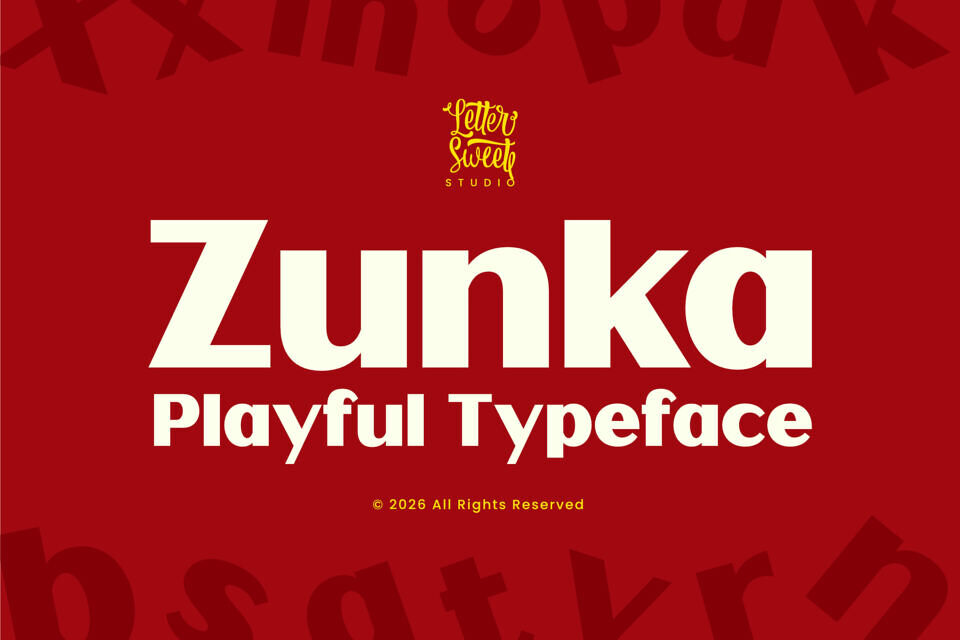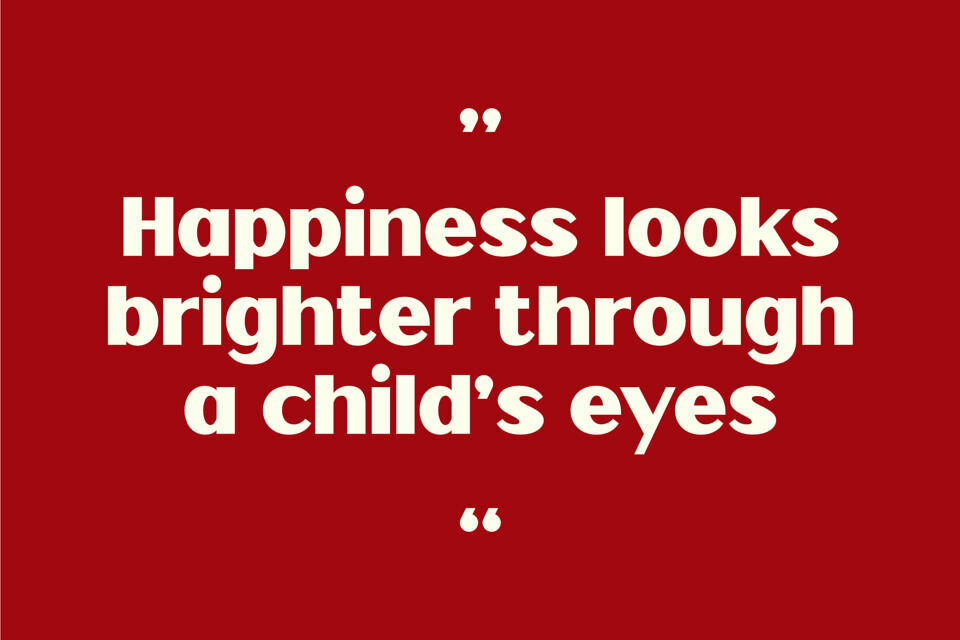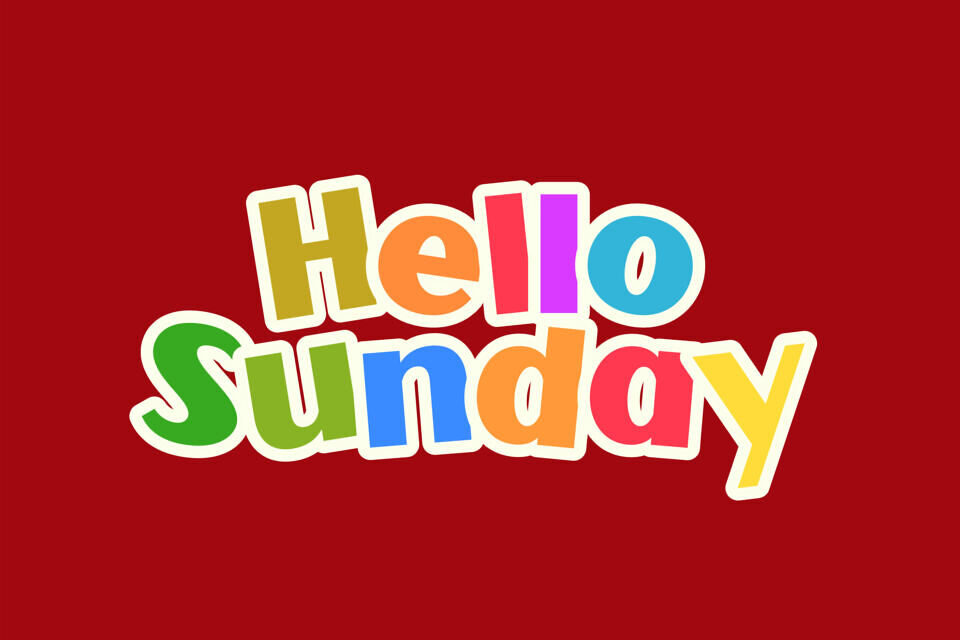
With its rounded shapes and friendly character, Zunka is perfect for kids projects, playful branding, logos, posters, packaging, stickers, apparel, social media graphics, and creative headlines.
This typeface delivers a happy and energetic vibe while staying clean and highly readable. Whether you’re working on children’s content, fun merchandise, or eye-catching marketing visuals, Zunka helps your design stand out with confidence and charm.